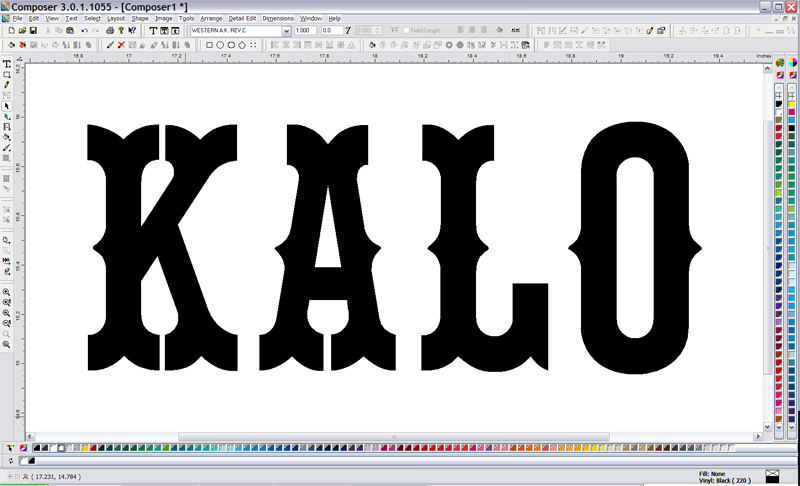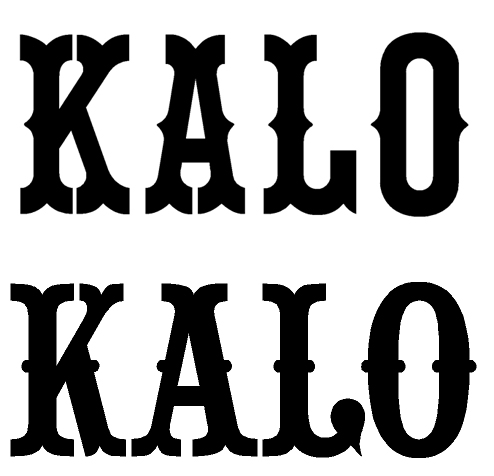
Cowboy Font
It's not bleeding cowboys.......... ;)
I've dug through all the fonts I can think of.. nothing is quite right.
Rex got it. It's Western which is supplied with every copy of Gerber Omega.
It was also distributed by ANAgraph DeSign Art as part of their font library and also by Milt's Fonts (on 5-1/4" floppies) many years ago.
That was one of my origianal 9 fonts on my Gerber Sprint III. $250 a font back then...
Awesome! I have Omega and it was in there. I don't use omega to design so I didn't even think about it. Thanks for the help everyone.
It was the Omega font. The thing that set it off from just about all of the others was it didn't have points on the insides of the letters. Thanks for the help though. I usually don't ask unless I've exhausted WTF, Identifont, flipping through DaFont, and all that other nonsense.